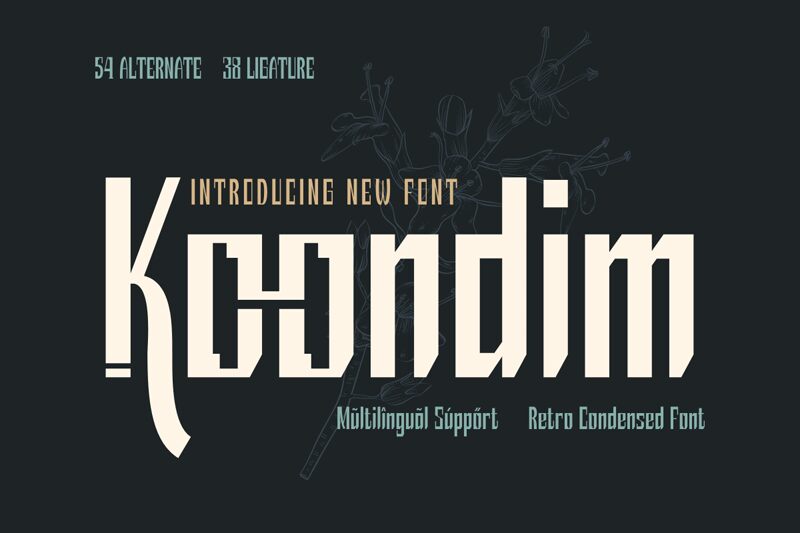
Koondimtrial Regular
Koondim by Twinletter is a display font that exudes retro charm with its condensed form. The bold and striking letters command attention, making it an excellent choice for headlines, posters, and branding materials that require a strong visual impact.
Koondim's nostalgic aesthetic captures the essence of vintage design while maintaining a contemporary edge, perfect for projects seeking to blend past and present. Whether you're aiming to evoke classic sophistication or modern simplicity with a twist of retro flair, Koondim offers versatile applications across various creative domains.